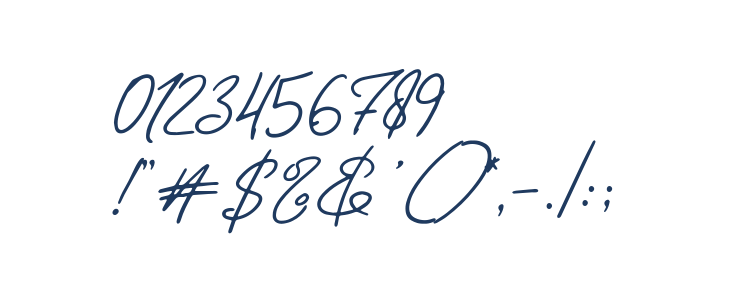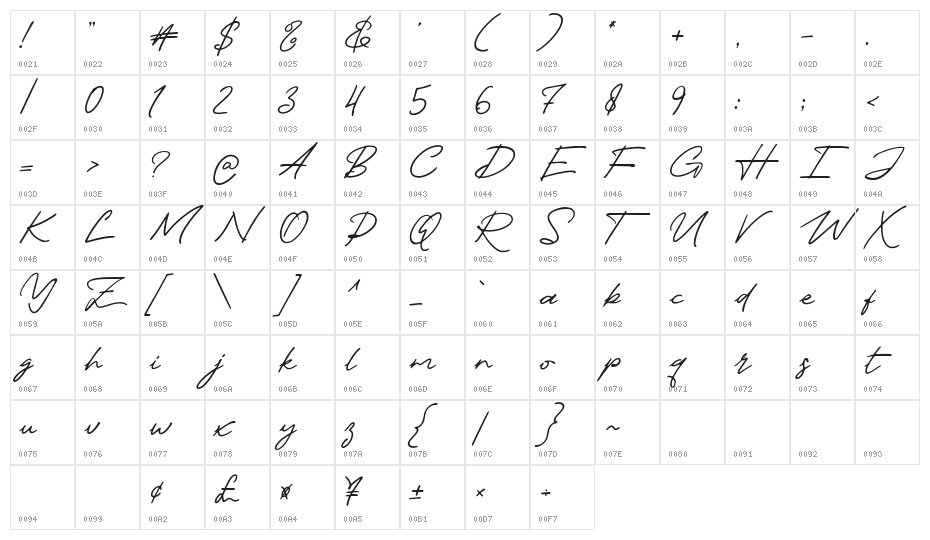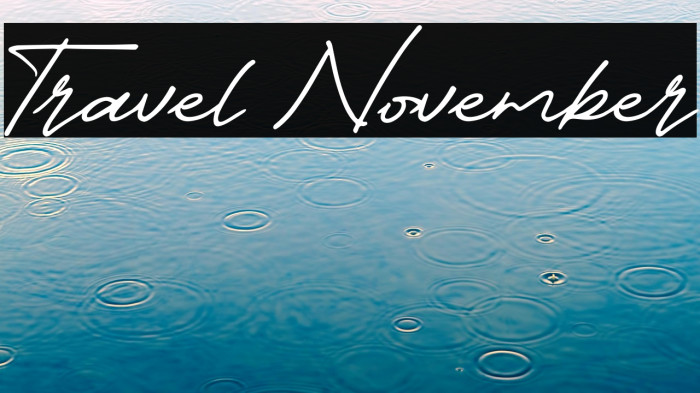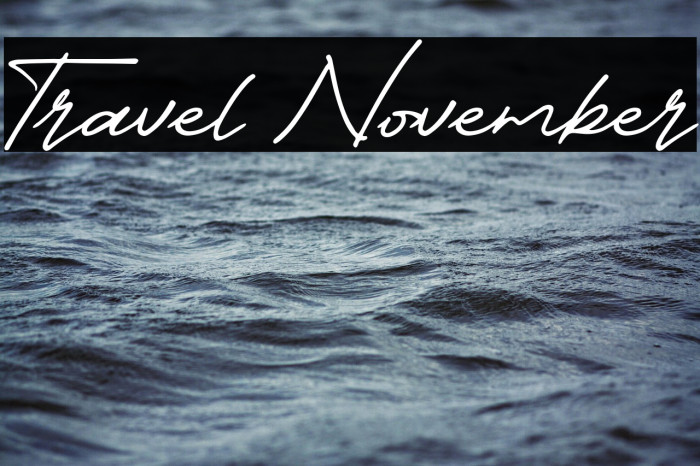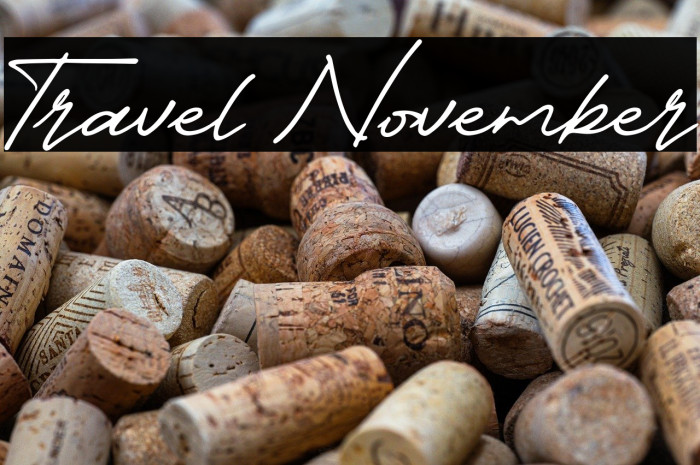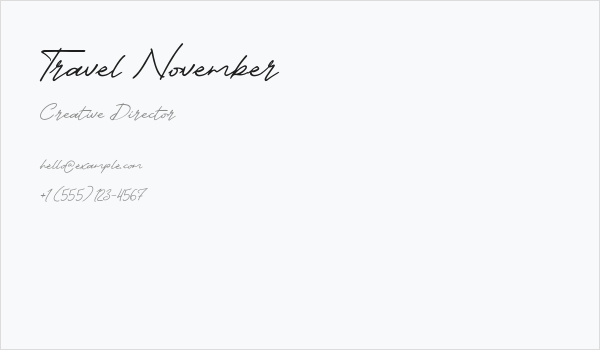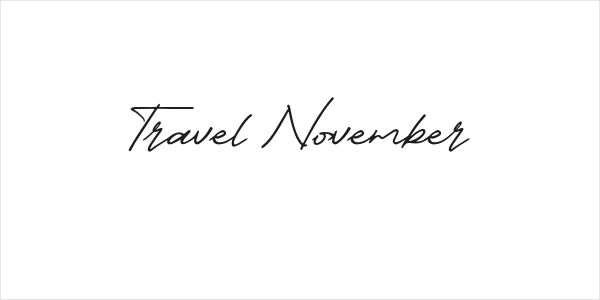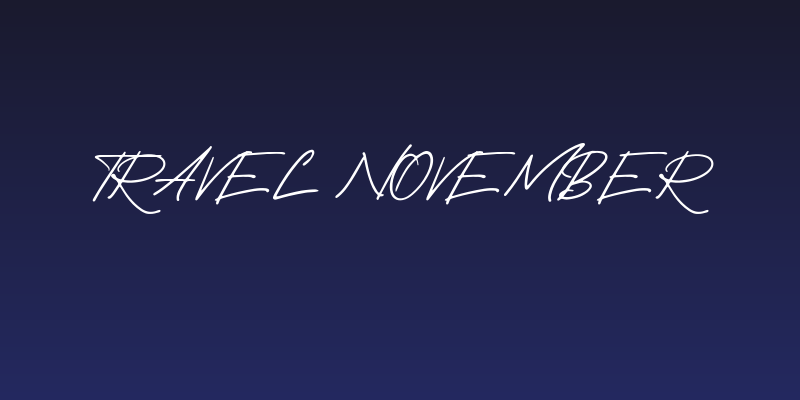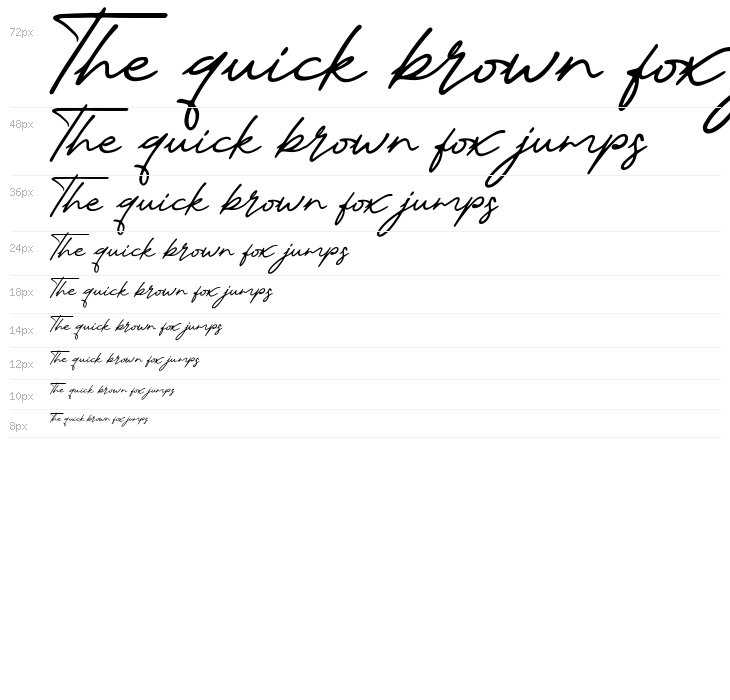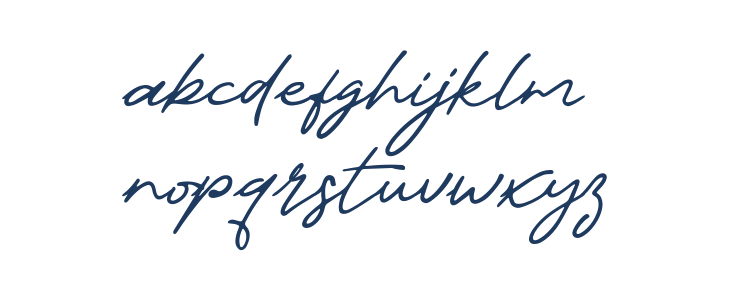
Travel November Font
Travel November Description
This font exudes a dynamic and fluid handwritten style, characterized by its elegant and flowing script. The letters are interconnected with smooth, sweeping curves that give it a sense of motion and grace. The uppercase letters maintain a consistent height, while the lowercase letters feature distinctive loops and flourishes, adding to its charm. The numerals are bold and slightly slanted, complementing the overall cursive aesthetic. Special characters are thoughtfully designed to match the script's fluidity, making it versatile for various applications.
| Proposed Projects | Ideal for wedding invitations, personal branding, greeting cards, and elegant packaging designs. |